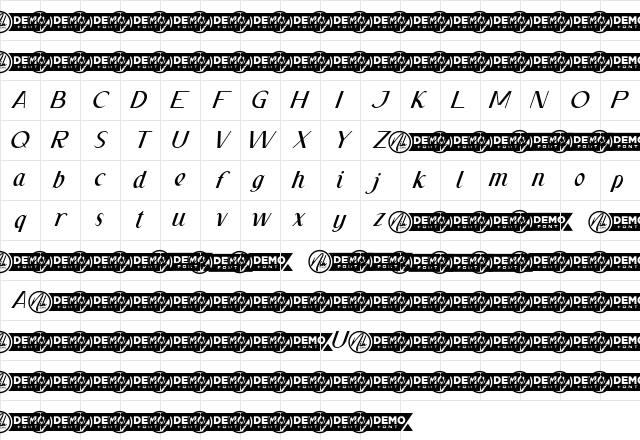
Classic Write Demo Italic Free Font
Classic Write Demo Italic
Foundry: NihStudio
Designer: Shalsha & Suci Anita
Design Context for Classic Write Demo
Classic Write Demo wears its vintage influences proudly, with letterforms that recall mid-century signage, classic packaging, and nostalgia-driven design. The slanted form adds forward momentum and visual energy.
Font Pairing: Combine Classic Write Demo with a simple slab or neutral sans - period-accurate companions reinforce the vintage feel without competing for attention.
Pro Tip: Lean into Classic Write Demo's period character by pairing it with aged paper textures, muted colour palettes, and vintage illustration styles.